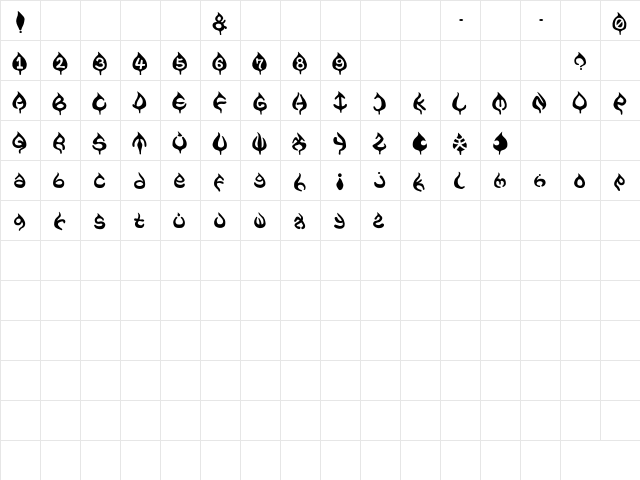
AME- Regular
Design Context for AME- Typeface
AME- is a composed and adaptable typeface that performs quietly and consistently across a wide range of design contexts.
Pro Tip: Use AME- in both headline and body roles to test its range before committing to a single application.